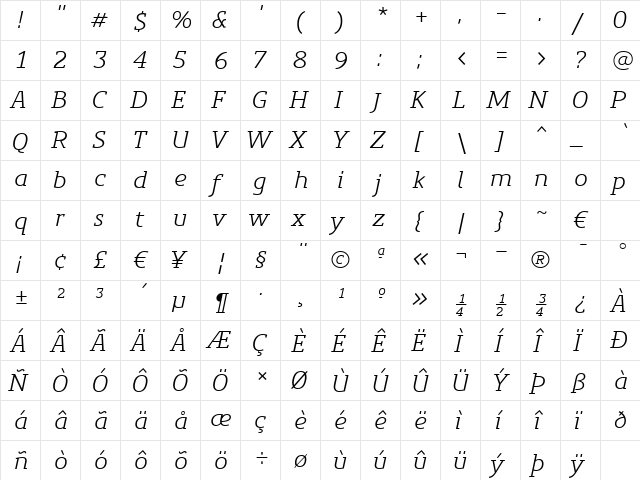
PreciousSerifBookItalic Regular Font Preview
PreciousSerifBookItalic Regular
PreciousSerifBookItalic Regular Font Details
Design Context for PreciousSerifBookItalic Typeface
PreciousSerifBookItalic brings classic typographic sensibility to the table — its serifs and measured letterforms reflect centuries of print heritage. Its italic angle brings a sense of urgency and motion to the letterforms.
Pro Tip: Use PreciousSerifBookItalic for editorial body copy and considered headline work. Pair with a neutral sans for UI elements or captions to create a classic hierarchy.